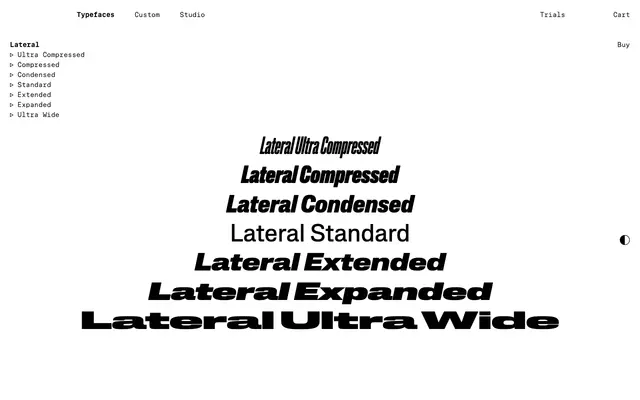
Lateral
A 98-style neo-grotesque superfamily across seven widths and seven weights, with a variable font controlling width, weight and slant via 56 masters.
Lateral is Schick Toikka's first variable family, conceived for the format from the start. The widest width takes up more than five times the space of the narrowest, and all curves share a flat section at their extremes that becomes increasingly visible the further the width axis is pushed, yielding straight-sided rounds at the compressed end and wide horizontals at the expanded end. The systematic approach echoes Frutiger's Univers and his cut-and-shift technique, and gives every line a slightly boxy, brutalist edge. The variable font drives three axes (width, weight, slant) from 56 meticulously drawn masters; the static range is a 98-style workhorse spanning seven widths in seven weights with upright and italic variants. Middle widths handle all-purpose typesetting; the extreme widths are made for display.
Schick Toikka describe Lateral as a contemporary superfamily revolving around sideways expansion, naming it after the Latin lateralis. They cite Adrian Frutiger's Univers and his cut-and-shift technique, and note that Lateral is the foundry's first variable font family, conceived for the format from the start; all curves have a flat section at their extremes which becomes more visible as widths expand.